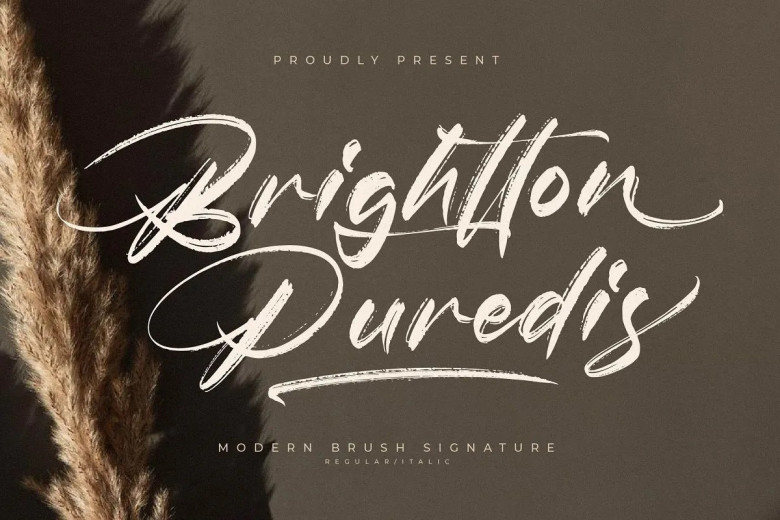
Brightton Puredis Font
Brightton Puredis, from Glorytype Studio’s Contemporary Brush Font family, can be used in many projects from logo design and branding for products to posters, quotes, shopping bags, t-shirts book covers, name cards greeting cards invitation cards labels watermarks photography special events photography or any other endeavor that requires elegant script fonts.
Brightton Puredis Brush Font